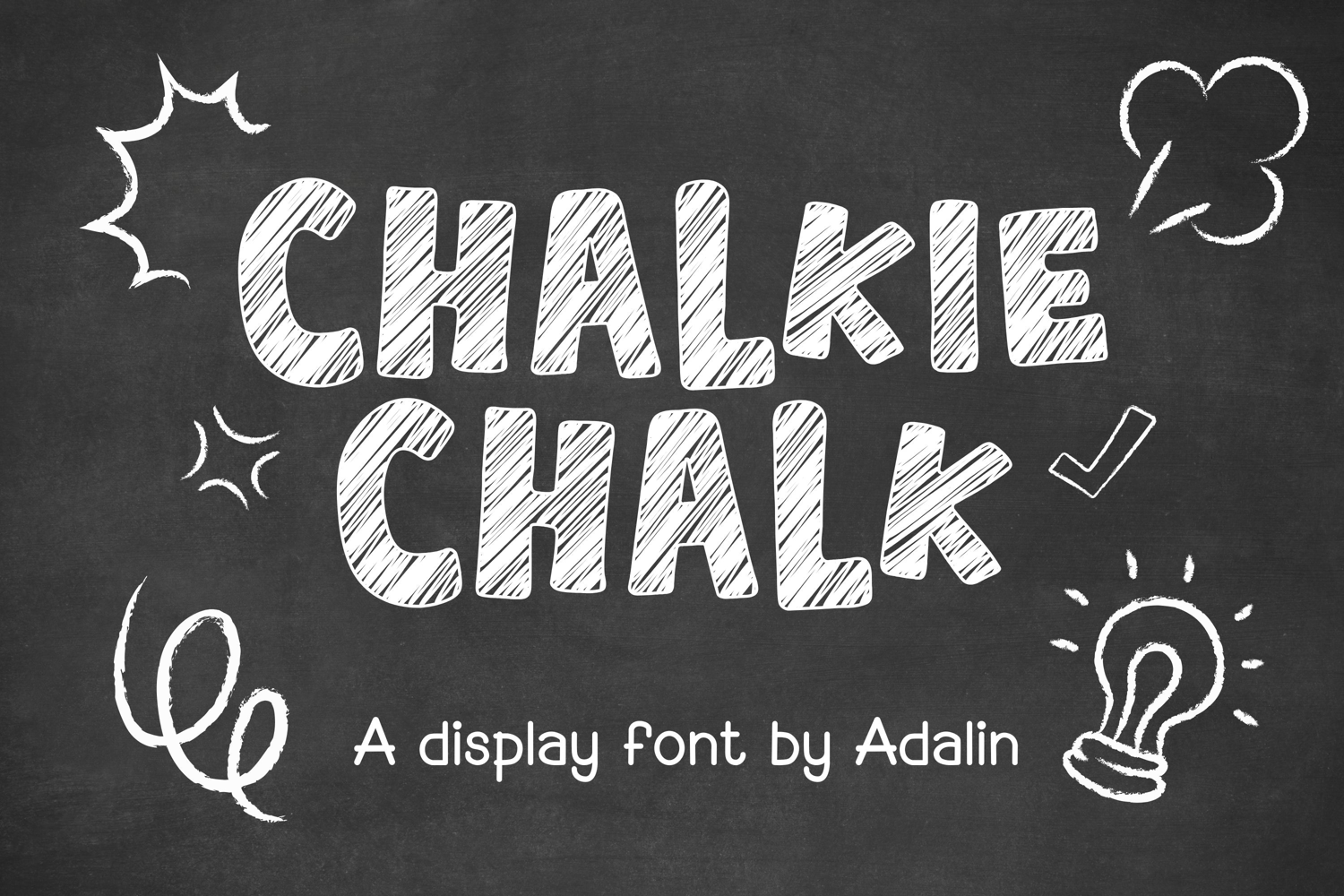
Chalkie Chalk is a playful display font designed to mimic the look of hand-drawn chalk on a blackboard. With bold, rounded letterforms filled with diagonal sketch lines, it captures the fun and creative spirit of classroom doodles and educational themes.
Ideal for teachers, schools, and kid-friendly designs, this font adds an engaging, informal touch to posters, worksheets, signage, and learning materials.